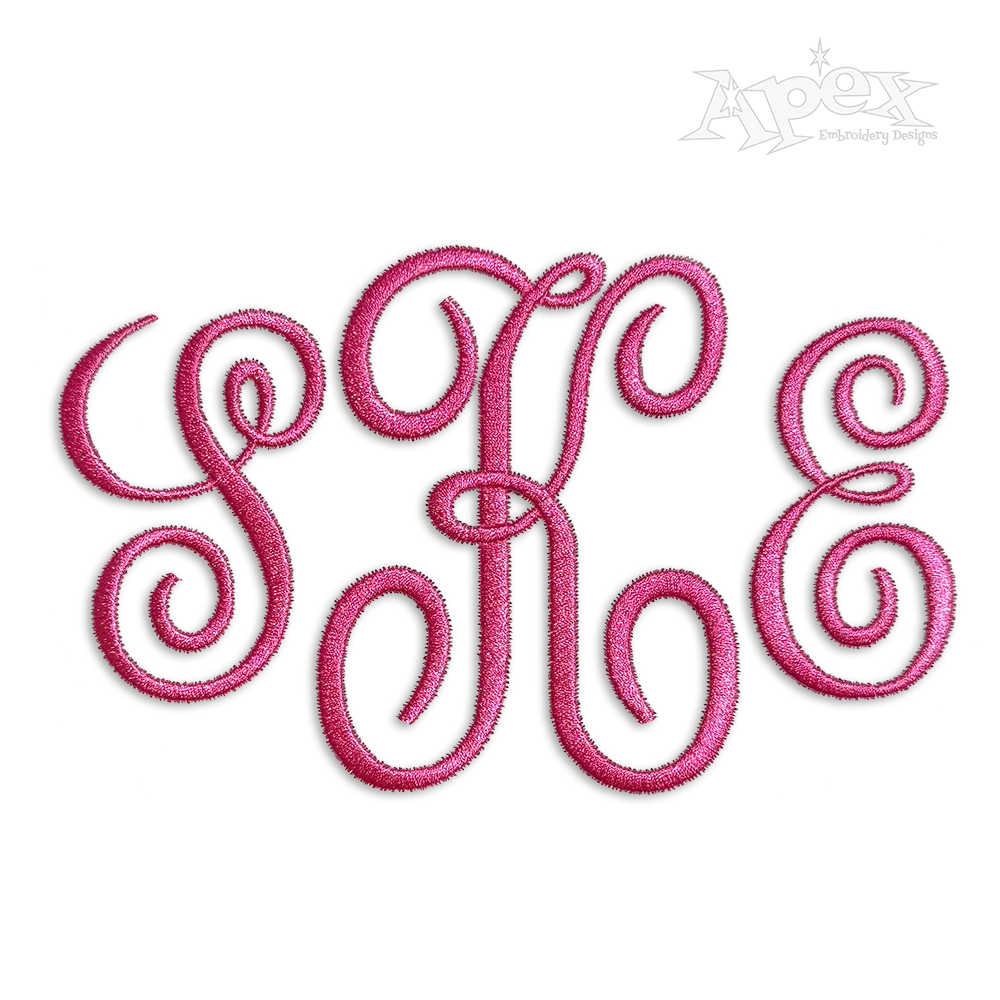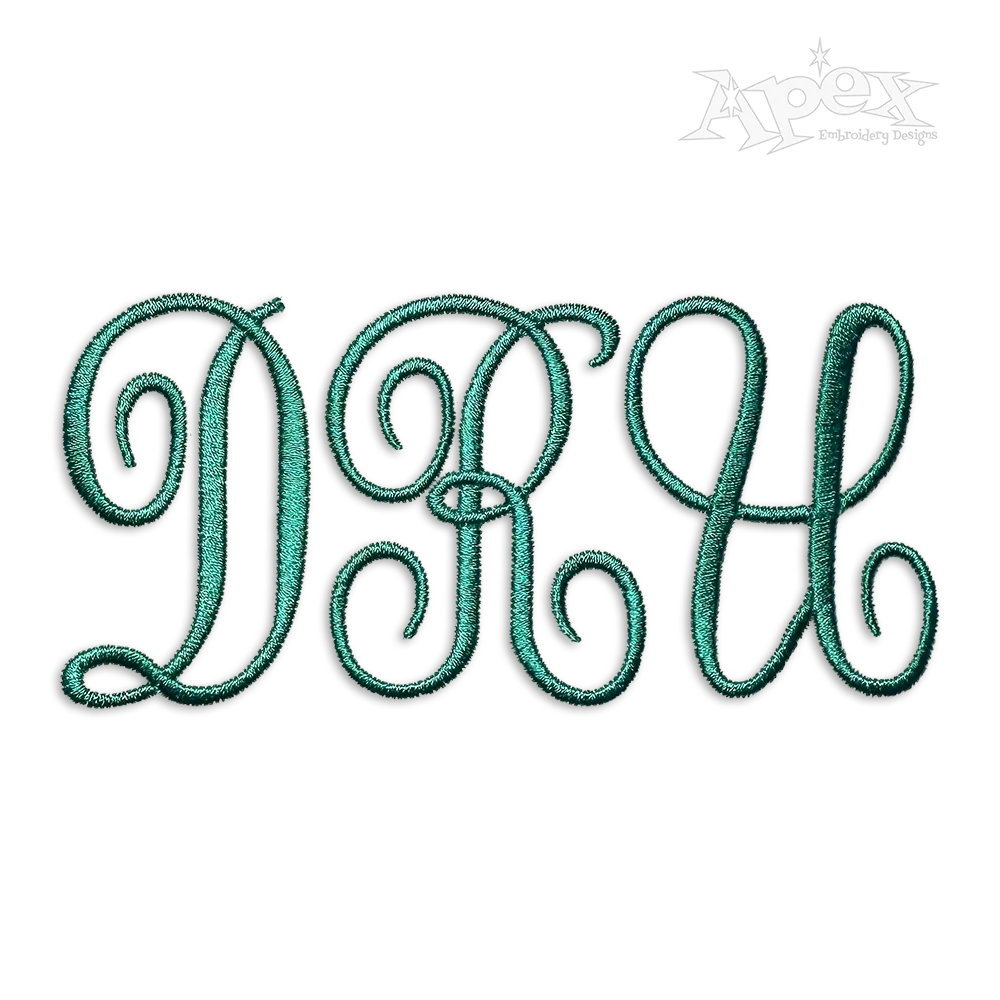
Cayman Curlz Embroidery Font
Conceived with the carefree spirit of sun-drenched shores and breezy coastal mornings, Cayman Curlz breathes joyful motion into your embroidery hoop. Every letter flourishes with lively loops and spirited curls that dance gracefully across textured weaves. Digitized from an artisan perspective, this playful alphabet captures the relaxed charm of resort living while maintaining crisp, tailored thread architecture, transforming simple linens and cheerful garments into radiant bespoke heirlooms.
Cayman Curlz Craft & Letterform Details
True embroidery craftsmanship lies in how satin stitches navigate energetic twists without stacking up or thinning out. In Cayman Curlz, every stroke has been digitizer-sculpted with radial underlay foundations that steady the ground fabric, allowing the top satin passes to lay flush, glossy, and smooth. Curves gently taper into artistic finials, ensuring that the playful swirls hold their rounded definition without puckering lightweight weaves or distorting soft knits. The transitions between sweeping loops and stable downstrokes are calibrated to catch ambient light, giving each monogram an animated, handcrafted luster that honors the art of decorative stitching.